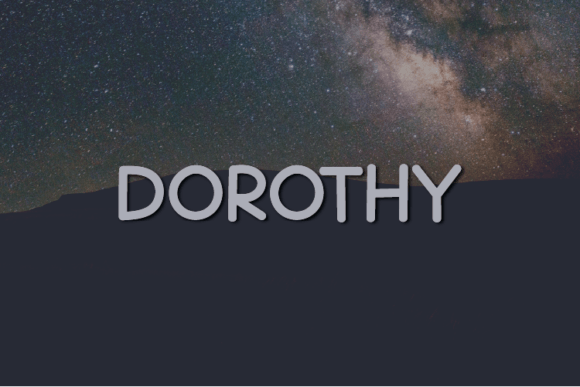
Discover Dorothy Font, the Ultimate Typographic Masterpiece Adding a Touch of Whimsy to Your Creative Projects
Journey into the world of typography with Dorothy Font, the brainchild of the renowned type designer, Hanna Bie. Immerse yourself in the beauty of this natural sans serif font, meticulously crafted without altering a single node in each character's indentation. This unique approach grants Dorothy Font an extraordinary charm, setting it apart from the ordinary.
With Dorothy Font, elevate your creative projects to new heights. Whether you're designing heartfelt baby books, crafting personalized notes, creating trendy tees, or embarking on any product design endeavor, Dorothy Font will effortlessly add a touch of whimsical elegance. Its versatility knows no bounds, making it the perfect companion for a myriad of design projects.
Dorothy Font's captivating curves and playful personality will infuse your designs with a sense of joy and captivation. Its natural flow and effortless readability make it a favorite among designers seeking to create visually stunning, yet highly legible typography.
Embrace the magic of Dorothy Font and witness the transformation of your creative vision into a captivating reality. Unleash your imagination and embark on a typographic adventure, leaving a lasting impression on your audience. Whether you're a seasoned designer or just starting your creative journey, Dorothy Font will become your trusted ally, adding a spark of enchantment to every project you undertake.